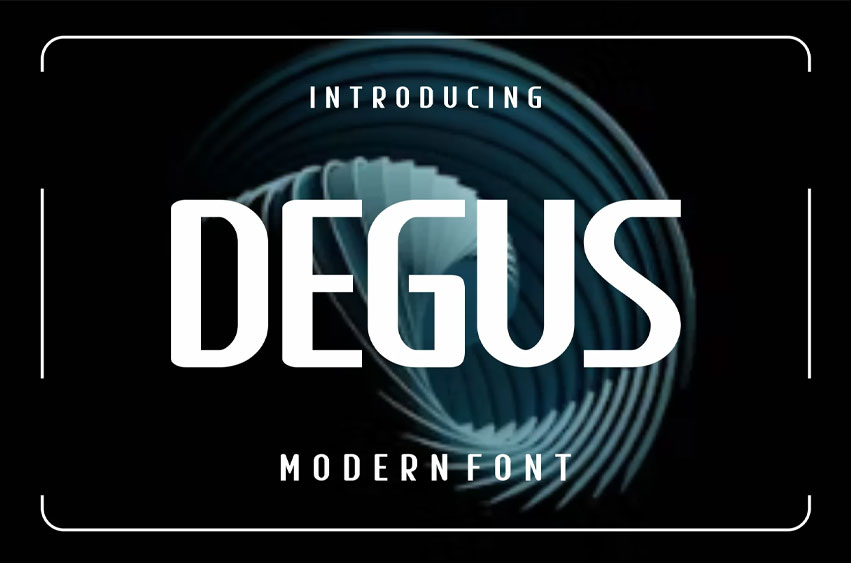
Degus Font
Degus Font Modern Sans Serif Font Perfectly suited on print/screen. it’s perfect for Branding, name cards, posters, logos, magazines, covers, banners, t-shirts, headers, or even large-scale artwork.